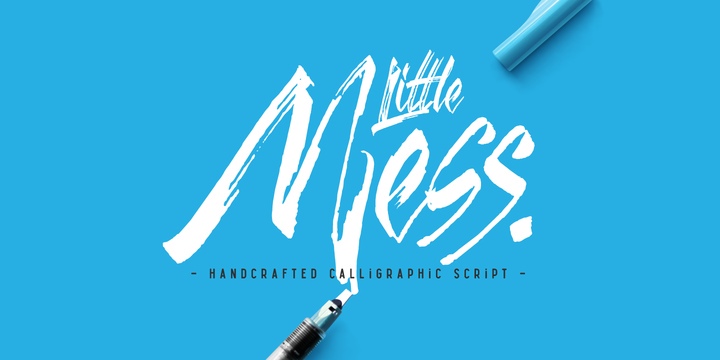
Little Mess Font
Little Mess Font is perfect for playful children's brands, creative art studios, whimsical craft projects, quirky social media graphics, fun educational materials, artistic workshop signage, bohemian lifestyle campaigns, creative agency branding, expressive personal projects, and charming handmade product labels.
What makes Little Mess Font so exciting is its delightful ability to embrace creative chaos and authentic imperfection through deliberately playful letterforms that seem to celebrate the beautiful messiness of genuine human creativity and artistic expression. This charming typeface captures the essence of creative freedom and artistic spontaneity with characters that radiate joy, authenticity, and the kind of delightful unpredictability that makes handmade art so endearing and memorable. The font's whimsical design elements perfectly balance intentional irregularity with readable functionality, creating an indispensable tool that communicates creative authenticity, artistic passion, and joyful expression, making it essential for brands and projects that celebrate the beautiful imperfection of human creativity and artistic play.
Little Mess Font comes in multiple font families including Regular, Bold, Light, Messy, Chaotic, Playful, Quirky, and Artistic variations. Each family member maintains the core playful characteristics while offering different creative chaos levels and stylistic approaches to suit various artistic and whimsical design requirements.
The Little Mess Font Free Download provides creative professionals and artistic brands with an exceptional resource for creating authentic materials that celebrate the joy of creative expression and artistic authenticity. This remarkable typeface distinguishes itself through its unique ability to communicate themes of creative freedom, artistic authenticity, and joyful expression. Whether you're developing children's creative brands, designing artistic workshop materials, or creating whimsical lifestyle campaigns, this font ensures your message radiates the genuine creativity and authentic artistic spirit that art-loving audiences cherish and embrace.
The creative authenticity in Little Mess Font makes it particularly effective for artistic industries and creative organizations where conveying genuine creative passion and authentic artistic expression is crucial for connecting with audiences who appreciate handmade quality and creative spontaneity. Its playful letterforms work beautifully across both digital and print applications, maintaining consistent whimsical appeal whether used for social media graphics or handcrafted product packaging.
Creative branding professionals appreciate how Little Mess Font transforms ordinary communications into delightful expressions of artistic authenticity and creative joy. The typeface's whimsical character set includes special creative symbols, artistic elements, and playful features that enhance the overall artistic atmosphere of any creatively-focused project.
For creative professionals serving artistic brands, children's markets, and creative lifestyle companies, Little Mess Font serves as the perfect foundation for establishing memorable visual identities that capture the essential qualities of creative authenticity, artistic joy, and whimsical expression that define successful brands celebrating the beautiful messiness and authentic charm of human creativity in a world that increasingly values genuine artistic expression.